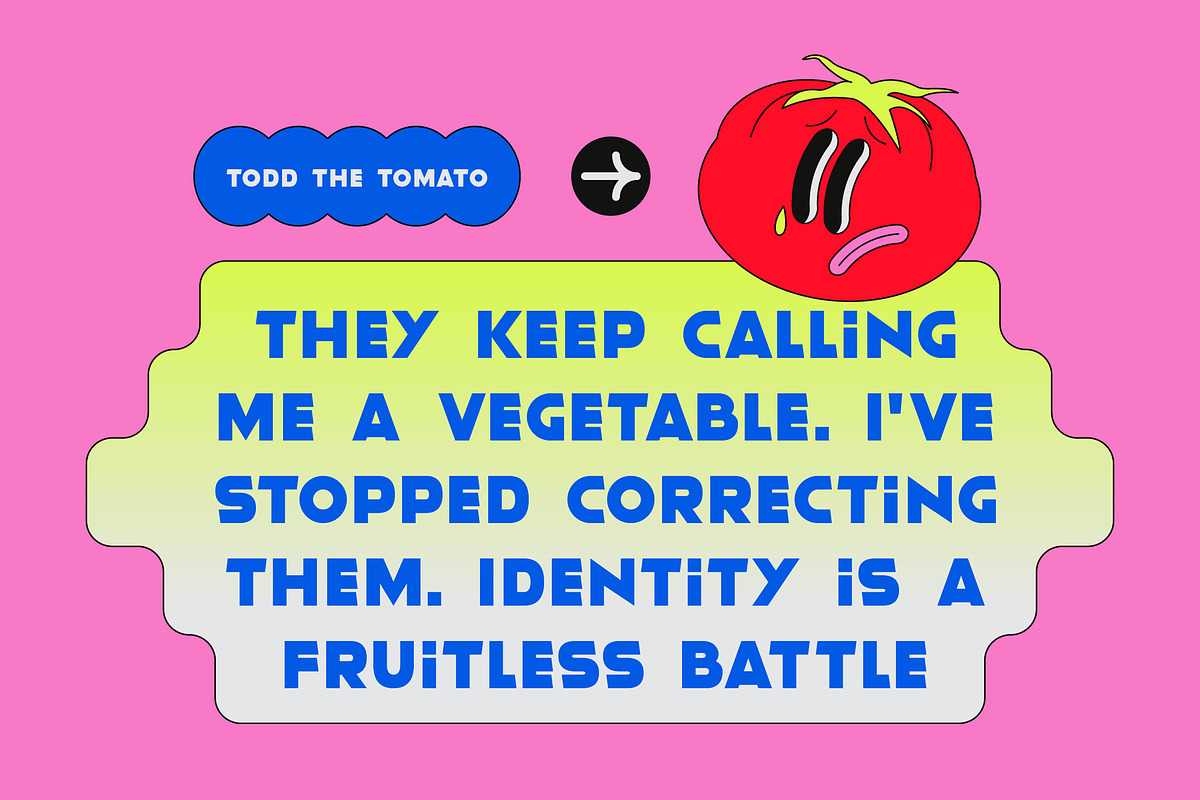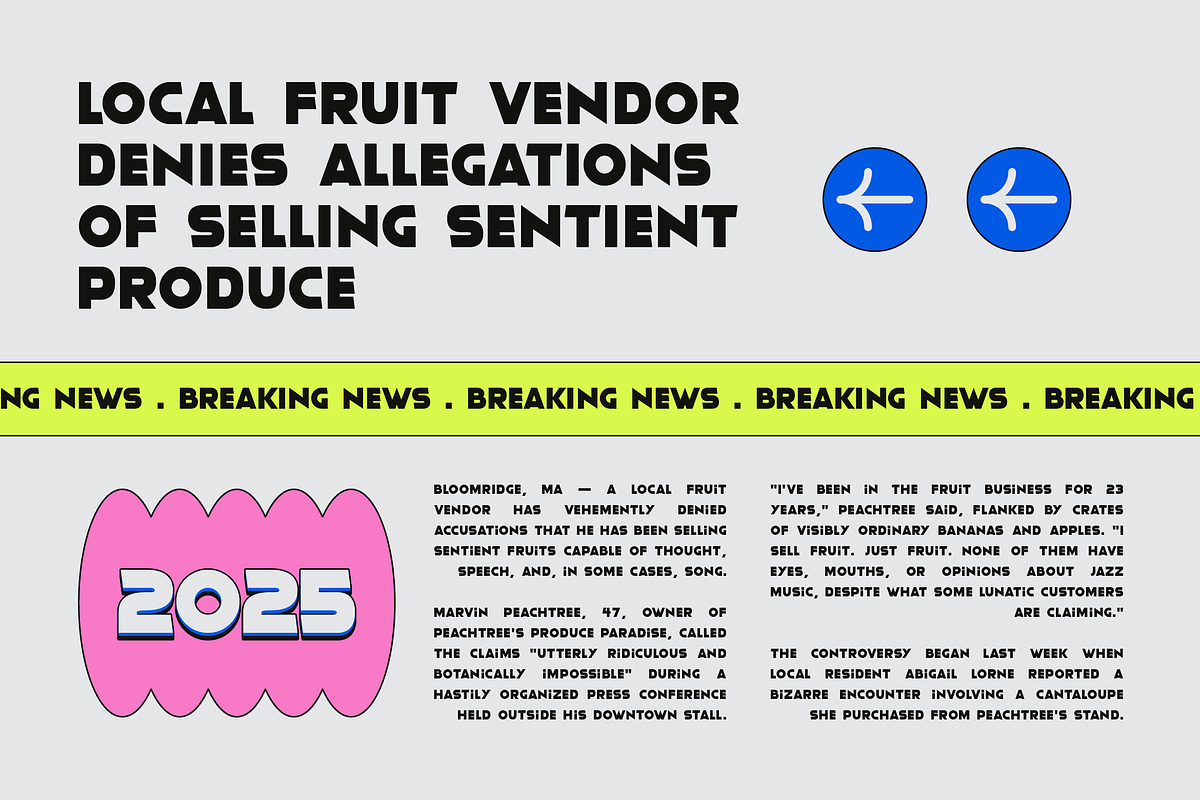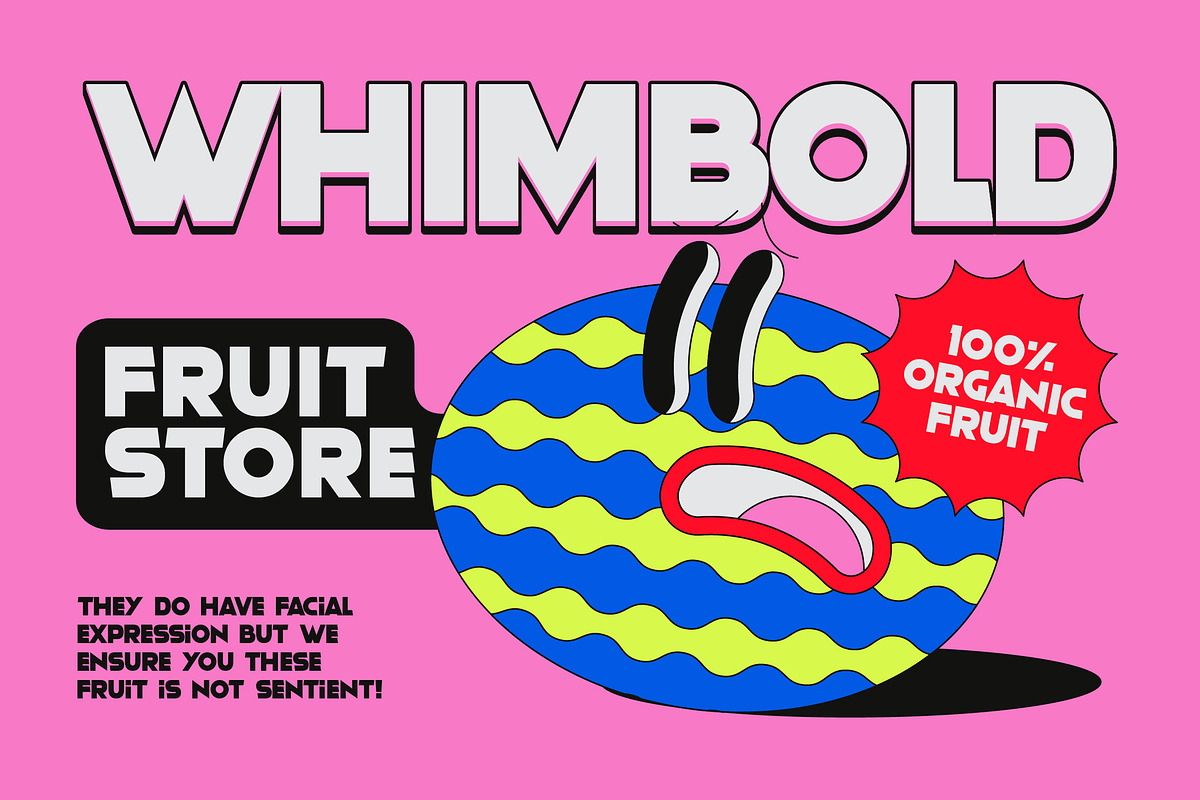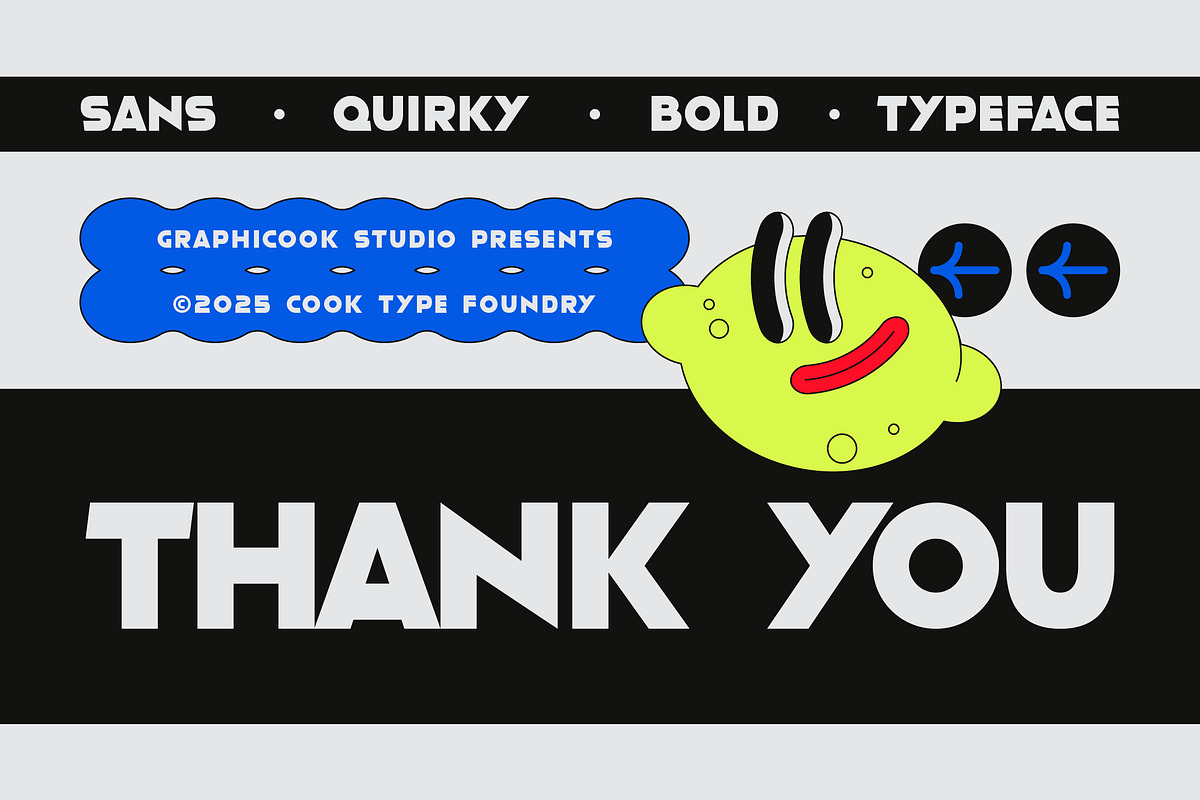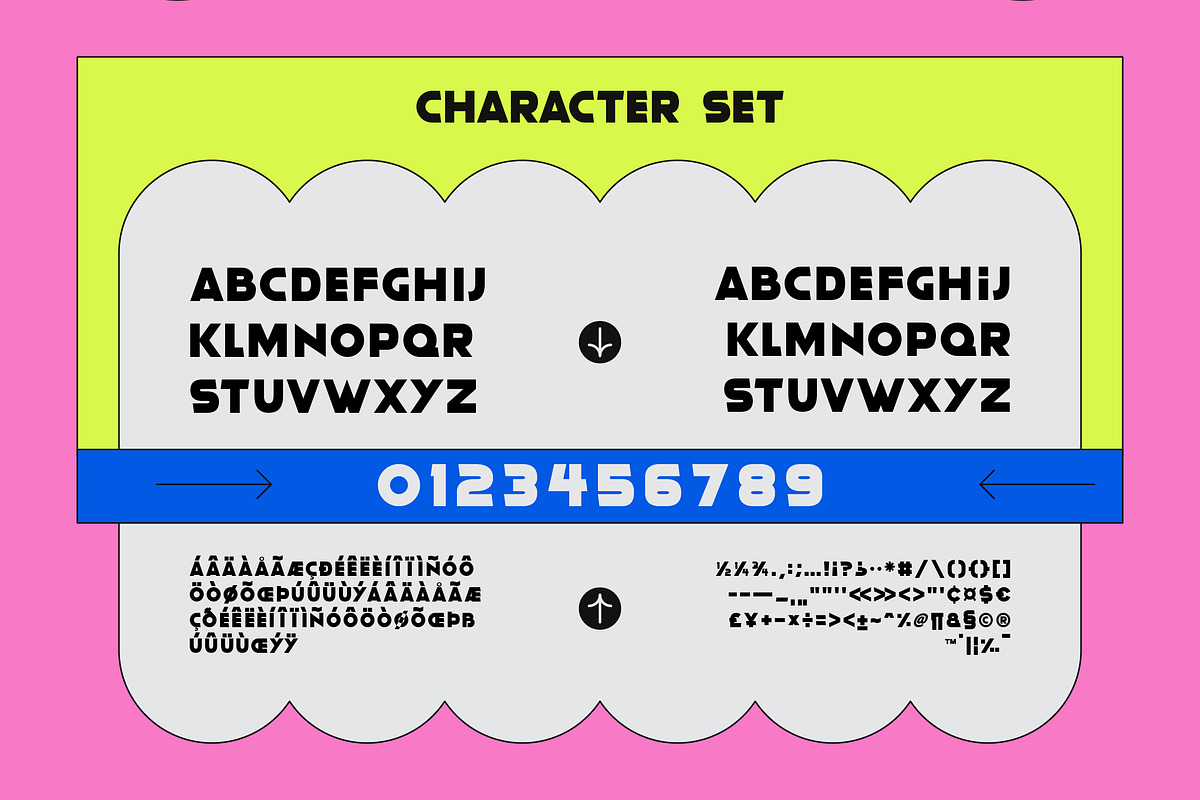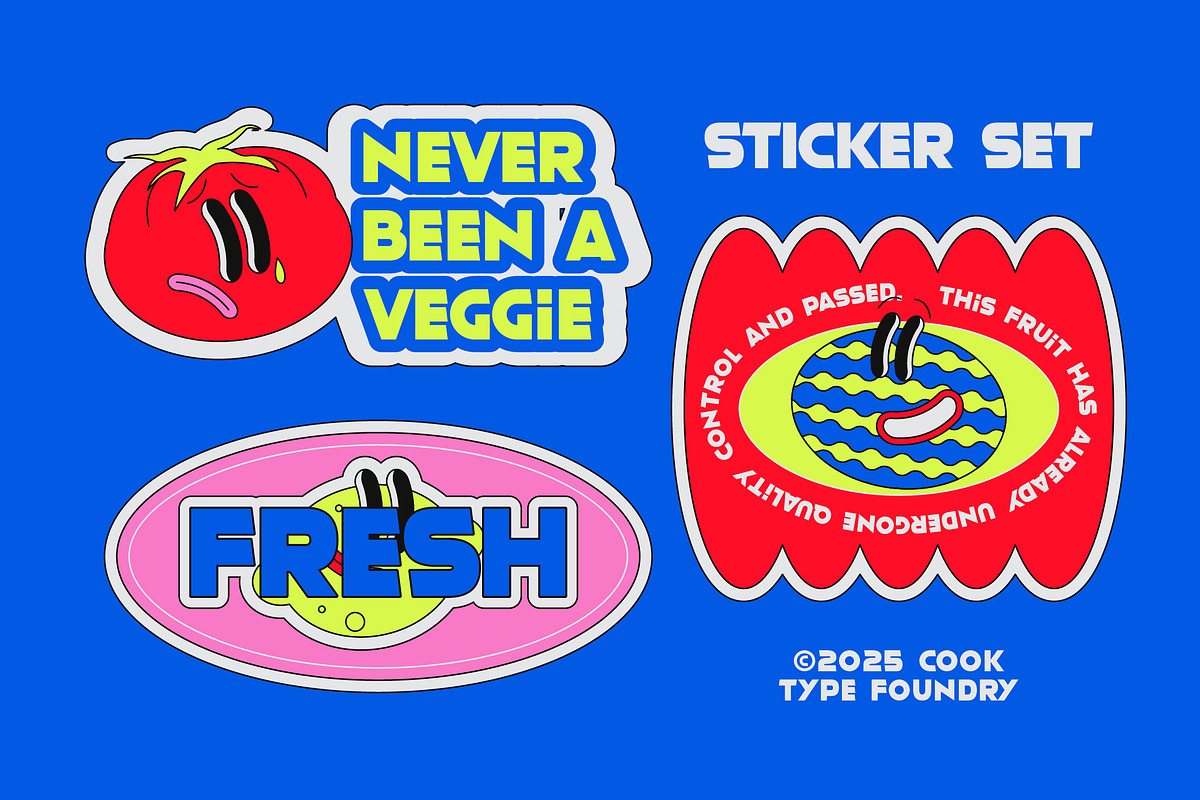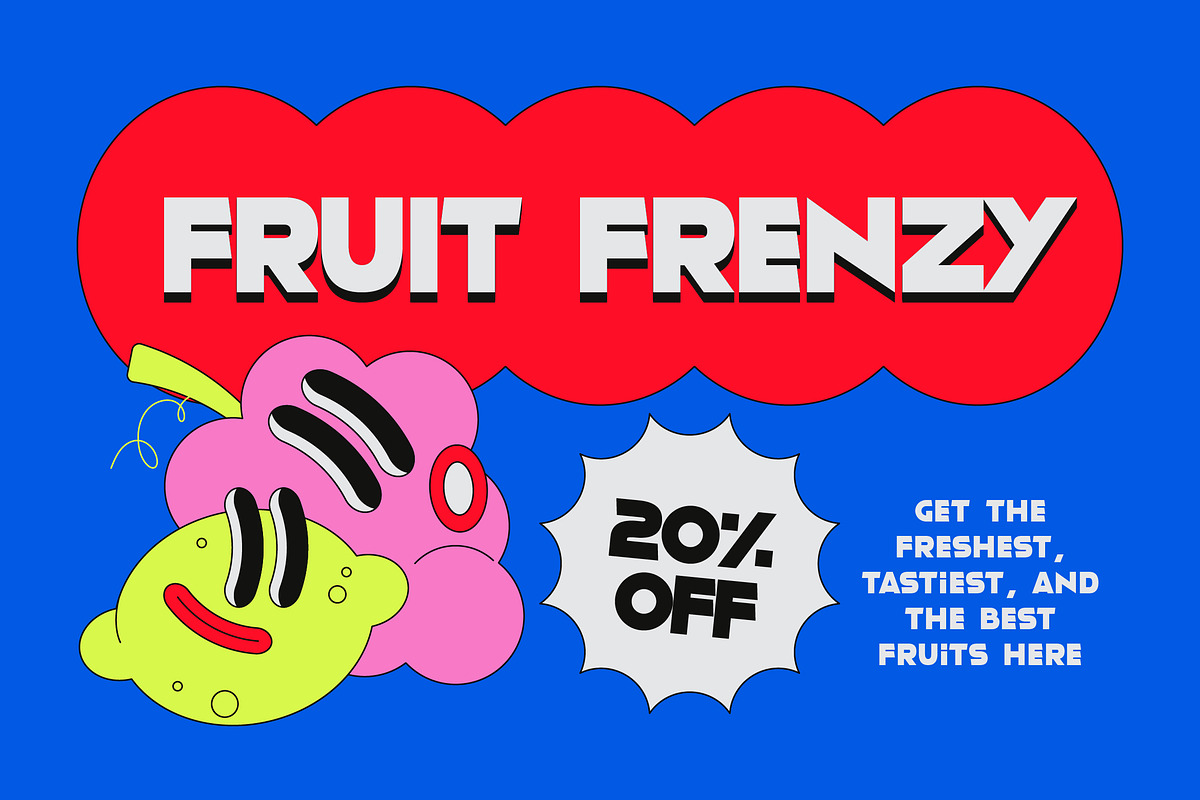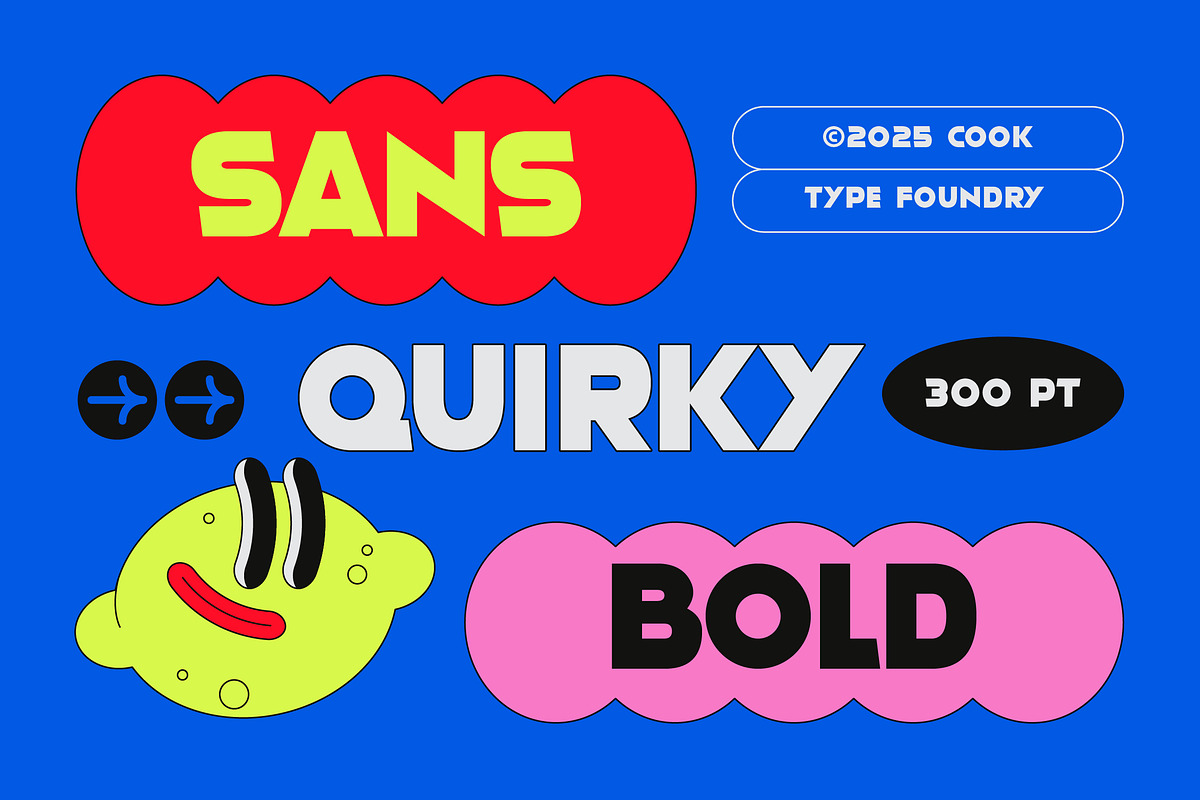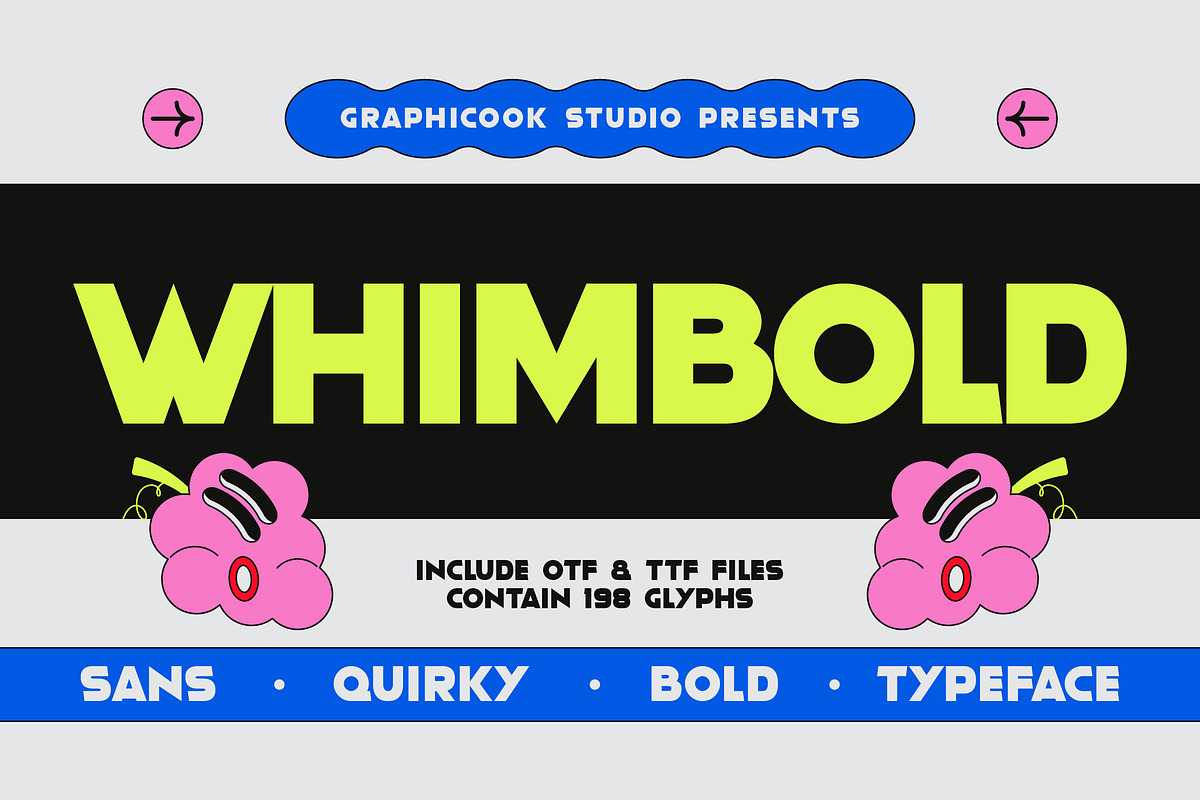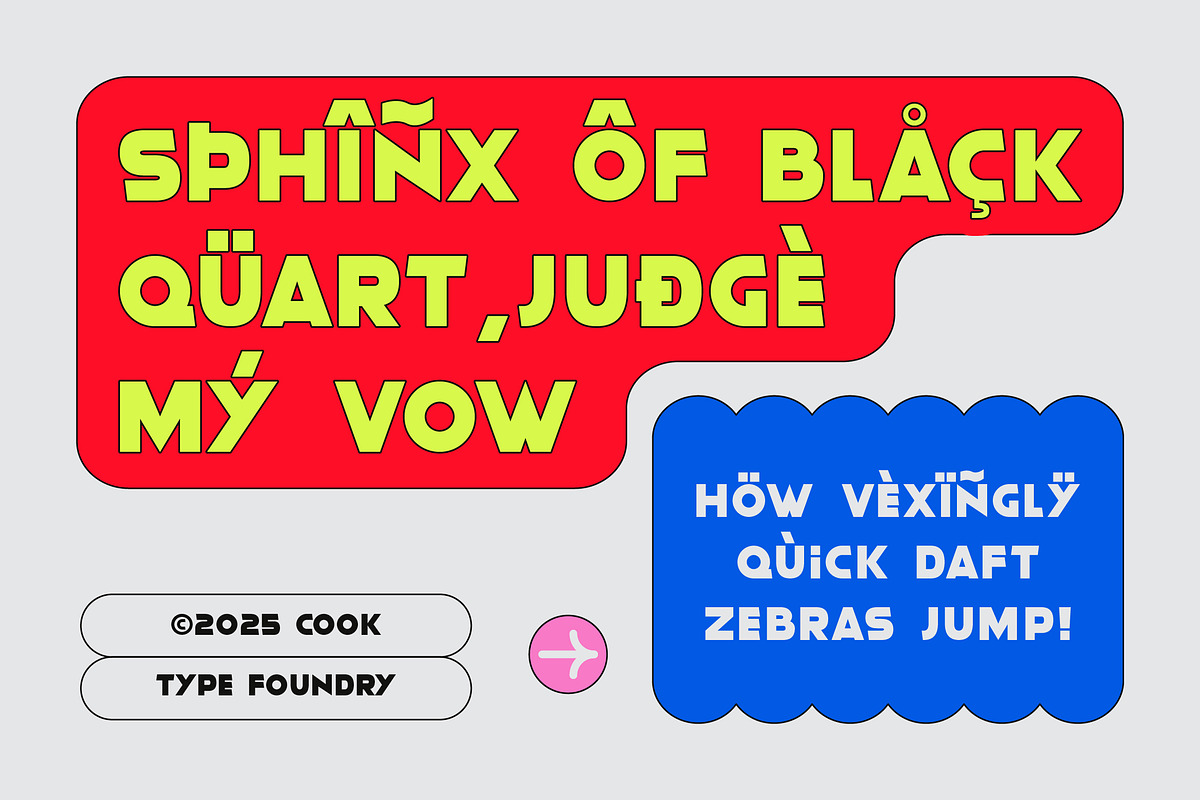
Whimbold
Whimbold is a bold sans-serif font featuring unconventional letterforms that add a quirky, energetic flair. Ideal for headlines or designs that want to appear dominant, fun, and full of character.
It is perfect for headlines, logotypes, magazines, packaging, quotes, movies, games, cover albums, book covers, and flyers, it's a perfect solution for creating eye-catching designs that stand out in any context.